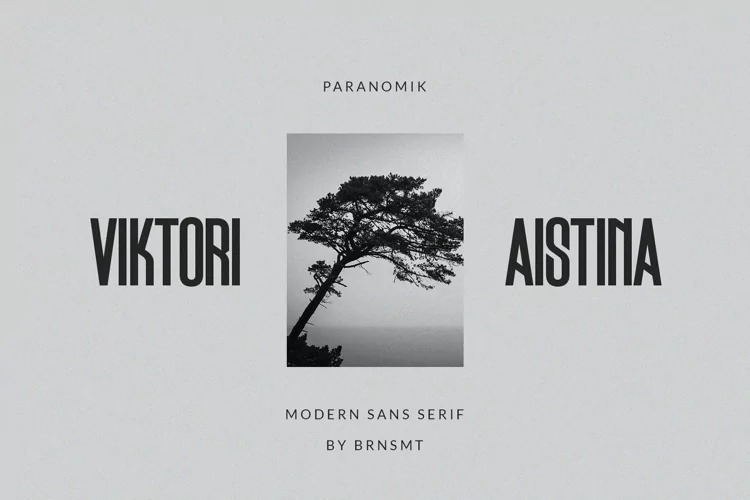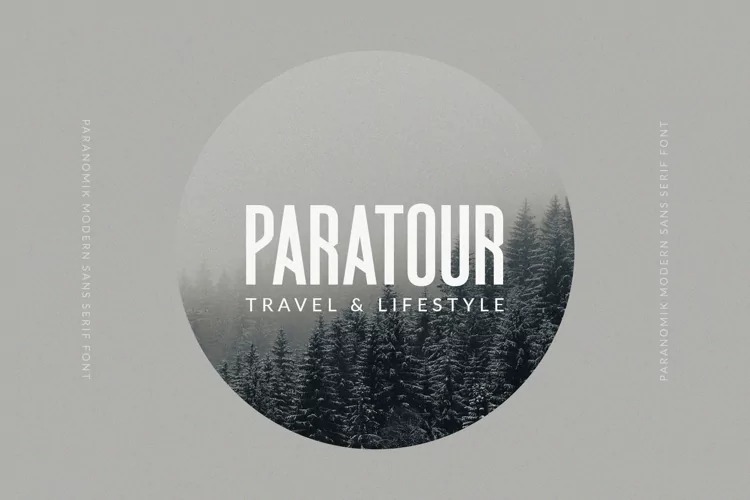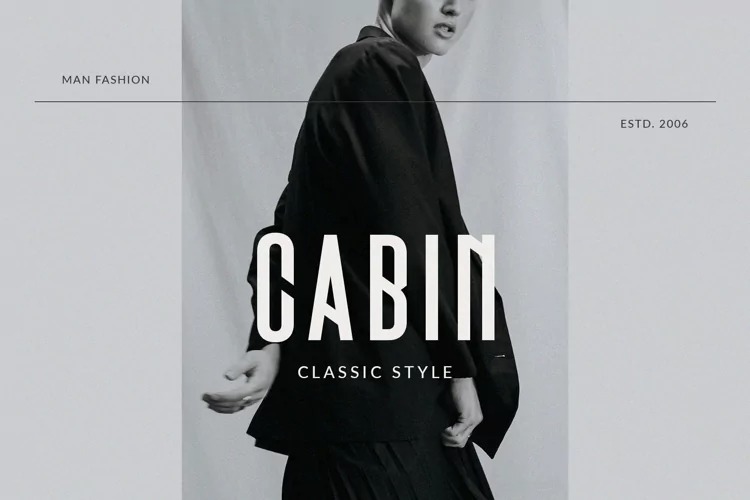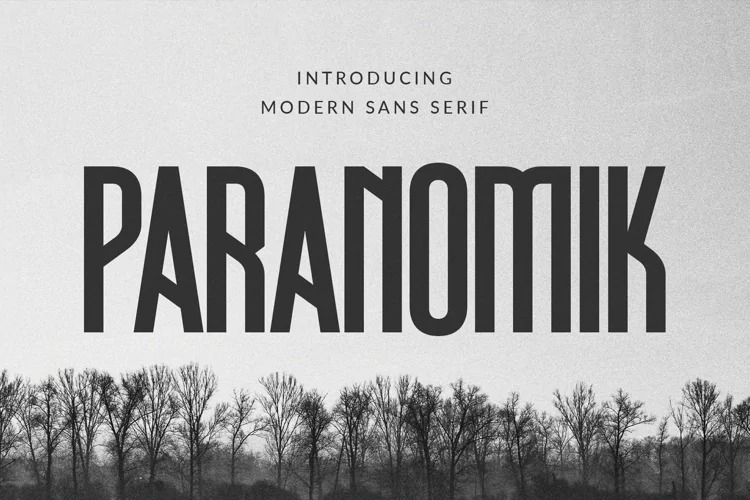
Paranomik Font
Paranomik Display Font is an all caps typeface that has a very bold body. This font looks very modern when paired with contrasting design colors. Paranomik is a modern and classy typeface, best used as a display for headings, logos, branding, magazines, product packaging and invitations. Paranomik come with clean lines and smooth curves give any project an extra touch of class.